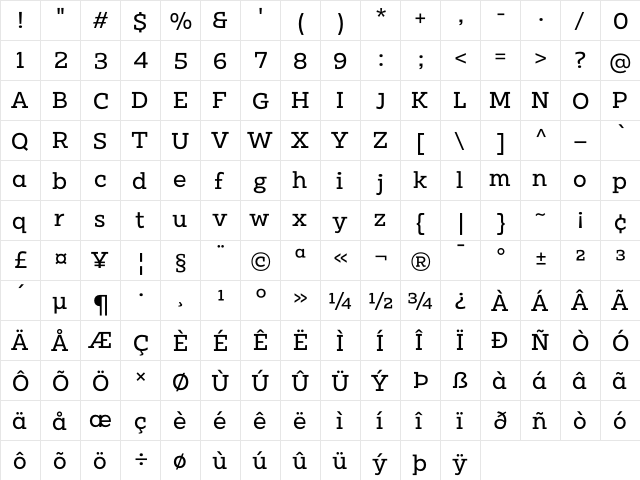
Clab Personal Use Regular
| Designer | Eko Bimantara |
Design Context for Clab Personal Use Typeface
Clab Personal Use takes a measured approach to typography — its balanced proportions and neutral character make it a reliable workhorse for both digital and print work.